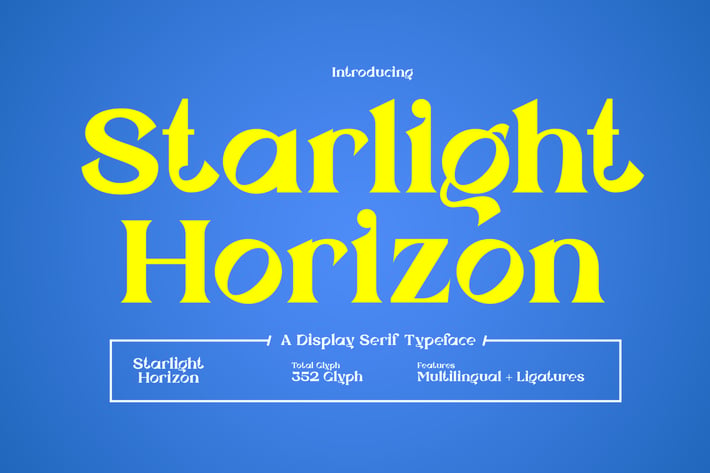
Starlight Horizon Display Serif Typeface
🌟 A Display Serif Typeface with Timeless Sophistication 🌟
Looking for a font that captures elegance with a bold presence? Introducing Starlight Horizon, a stunning display serif typeface designed to bring sophistication and luxury to your design projects. With its striking letterforms and refined details, Starlight Horizon is perfect for creating impactful typography while maintaining an air of timeless grace.
✨ Key Features:
✔ Elegant & Bold Design – Ideal for luxury branding, editorial layouts, and creative projects.
✔ Versatile & Customizable – Includes alternate characters and ligatures for a unique, tailored look.
✔ Multilingual Support – Supports international characters for seamless global use.
✔ Crisp & High-Quality Display – Ensures readability and impact in both digital and print formats.
Elevate your designs with Starlight Horizon – a display serif typeface that blends bold elegance with a touch of exclusivity.